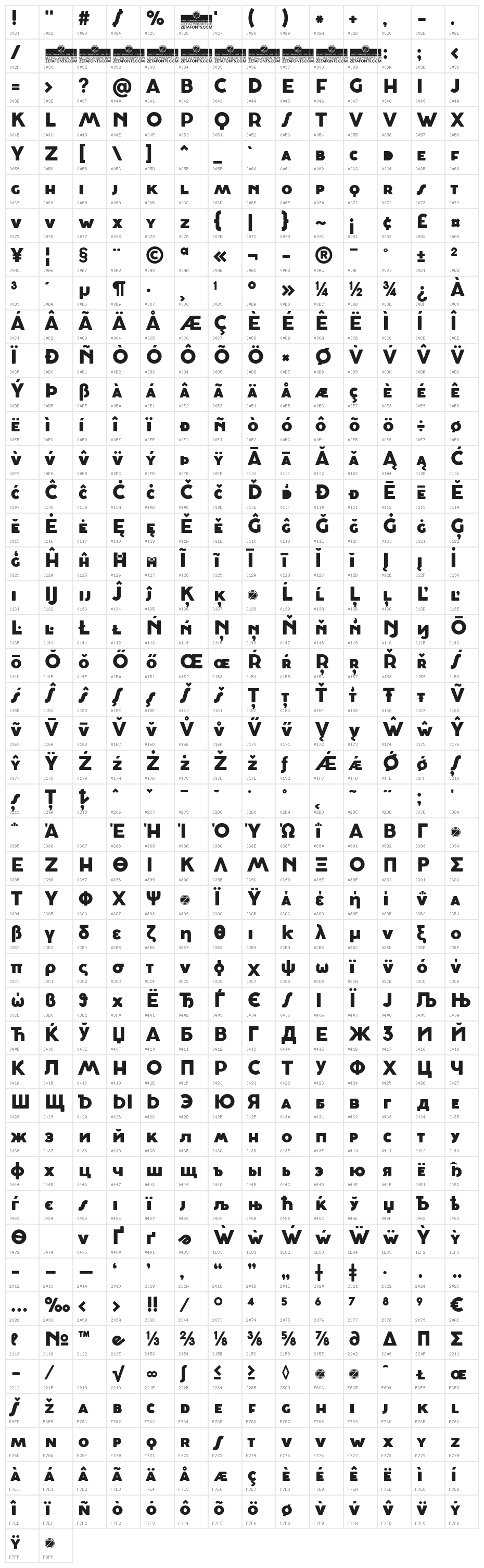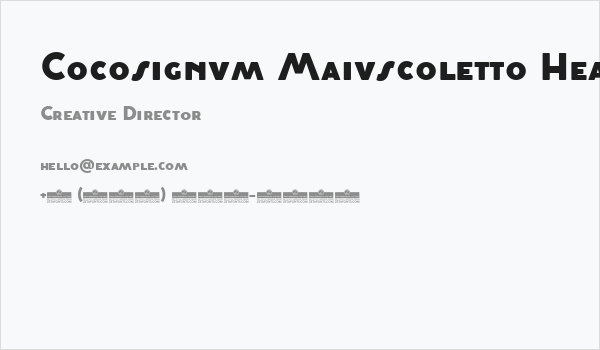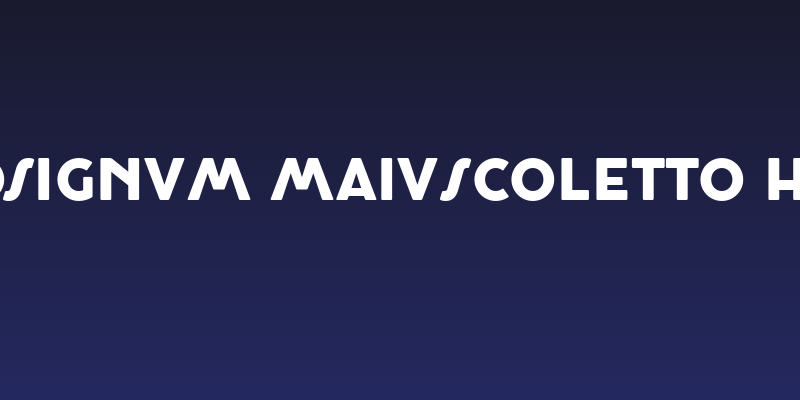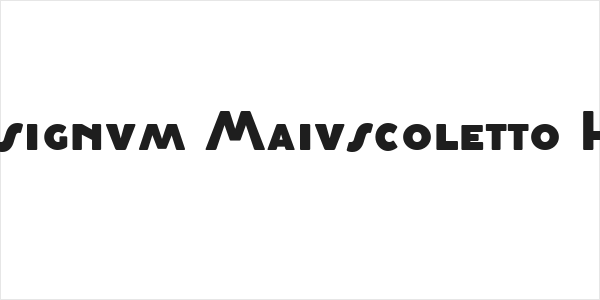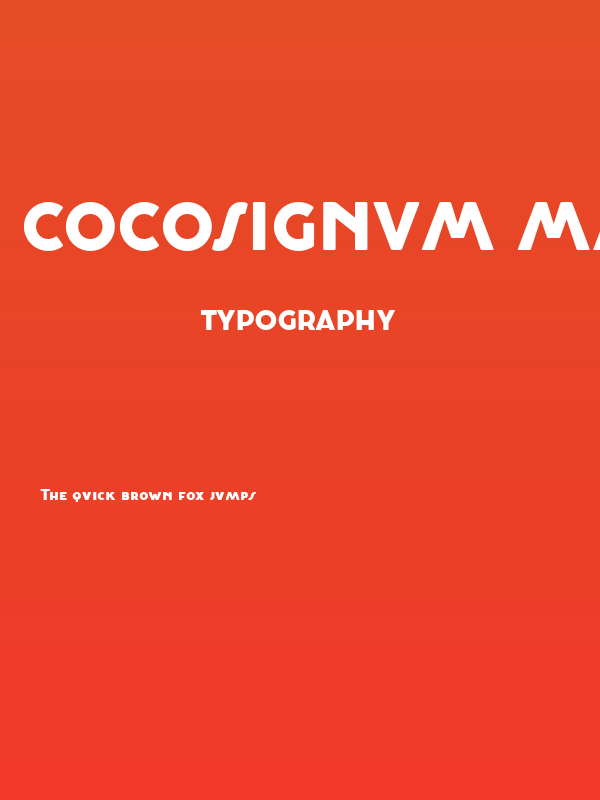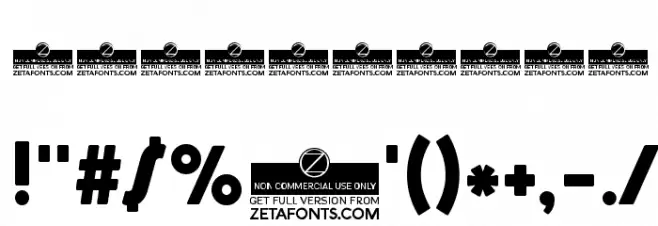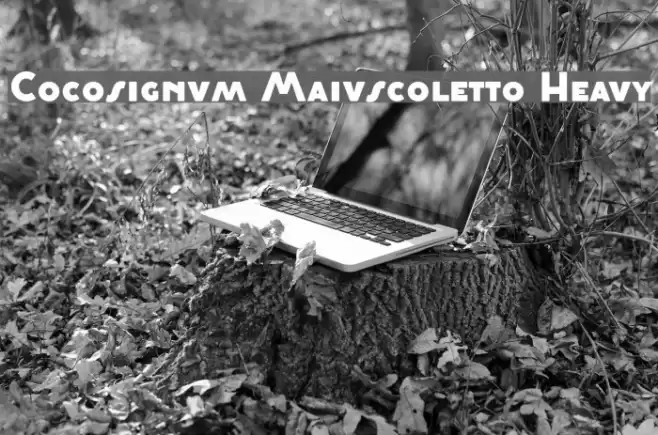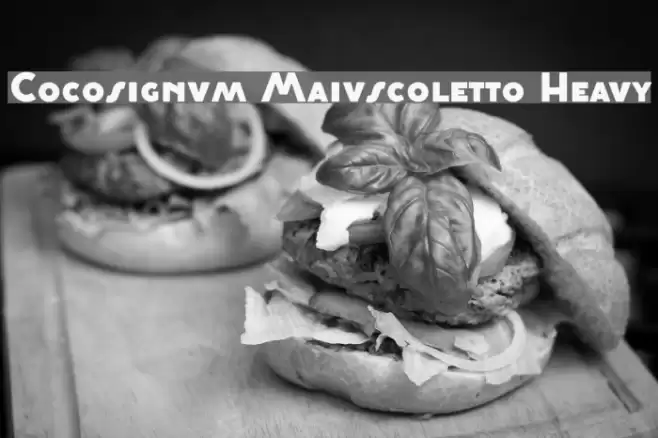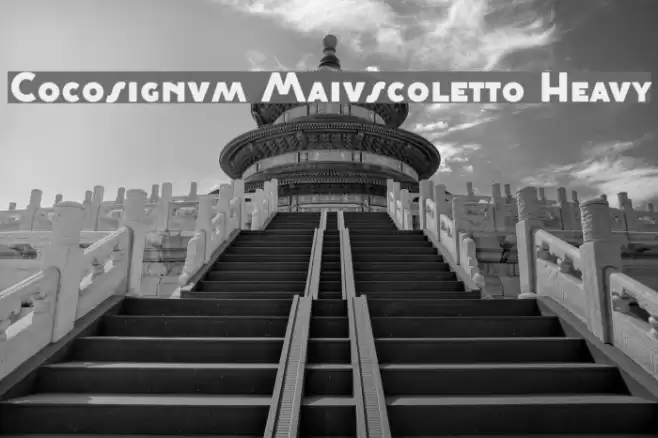
Cocosignum Maiuscoletto Heavy Font
Cocosignum Maiuscoletto Heavy Description
This font features a bold and heavy design with a modern and geometric style. The characters are constructed with thick, uniform strokes that give a strong visual impact. The uppercase letters are particularly striking, with unique elements such as the distinctive tail on the 'Q' and the curved leg of the 'R'. The font maintains a consistent weight throughout, ensuring a cohesive appearance. The special characters are equally bold, complementing the overall design. This typeface is ideal for making a statement and capturing attention.